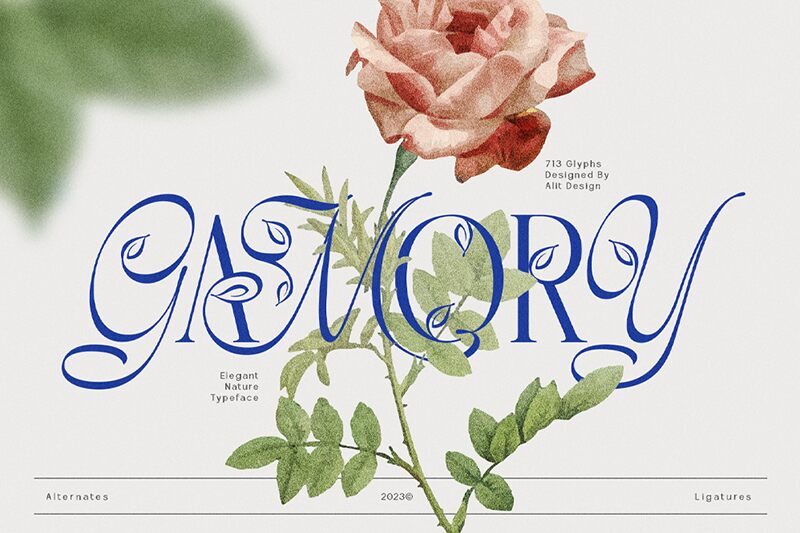
Gamory is a free decorative font designed by Alit Design to add a touch of sophistication to all your designs. The ornamental details and historical touches give the font a high-end appeal with unmissable elements of elegance. Gamory is a true eye-catcher without striking too hard on the retina, making your texts readable while notably expressive.
This font can support and improve your branding strategy where a sophisticated approach is needed with class and professionalism as some of your key points. Professionals will enjoy using it in wedding invitations, packaging, menus, and even decorative image overlays.